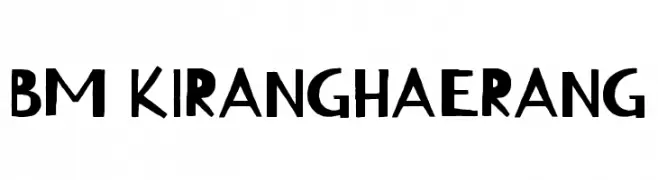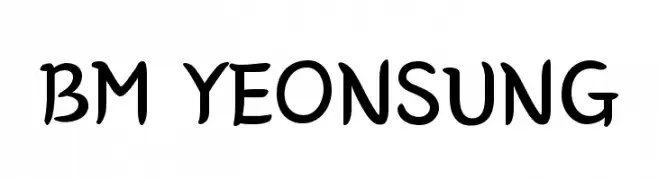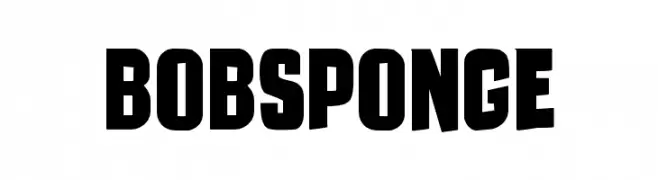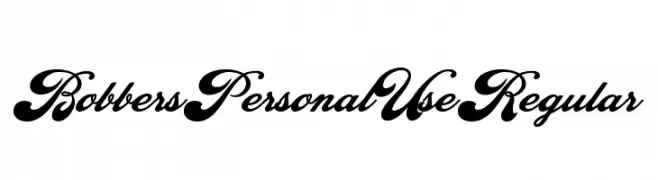
A playful, handwritten font with tall, narrow letters and a whimsical style.
A modern, elegant script font with flowing, cursive strokes.
A dynamic handwritten font with fluid, elongated strokes and a personal touch.
A bold, geometric font with a modern, futuristic aesthetic.
An elegant script font with ornate, flowing letterforms.
A bold, pixelated font with a retro digital style.
A bold, textured font with a distressed, chain-link fence appearance.
A bold, distressed font with a rugged, textured appearance.
A geometric, modern font with a futuristic and technical design.
A bold, geometric font with strong, uniform strokes and a modern aesthetic.
A bold, italicized font with a modern, geometric style.
A modern, italicized font with sleek, angular characters.
A bold, playful font with exaggerated angles and a dynamic style.
A bold, italicized font with a dynamic and energetic style.
A playful, bold font with irregular, jagged edges and a hand-drawn appearance.
A bold, italic font with dynamic angles and a modern, energetic style.
Bold slab serif font with strong shadows and a three-dimensional look.
A bold, textured 3D font with a diagonal line pattern for a dynamic look.
A playful, bold outline font with boxed characters.
A tall, narrow font with a modern and sleek design.
A modern, tall, and narrow font with a sleek, geometric design.
A bold, hand-drawn font with textured, sketch-like hatching.
A bold, geometric, and fragmented decorative font ideal for modern and edgy designs.
A bold, gothic-inspired font with sharp, angular edges and intricate details.
A futuristic, geometric font with high contrast and angular design.
A bold, sketch-like 3D font with a graffiti-inspired style.
A bold, playful font with jagged outlines and rounded characters.
A bold, decorative font with a grunge texture and thick outlines.
A bold, geometric font with sharp, angular characters and a modern aesthetic.
A bold, modern typeface with clean lines and uniform spacing.
A clean, modern sans-serif font with medium contrast and balanced spacing.
A bold, modern font with uniform strokes and strong visual impact.
A bold, distressed font with a rough, vintage texture.
A bold, geometric sans-serif font with a blocky design.